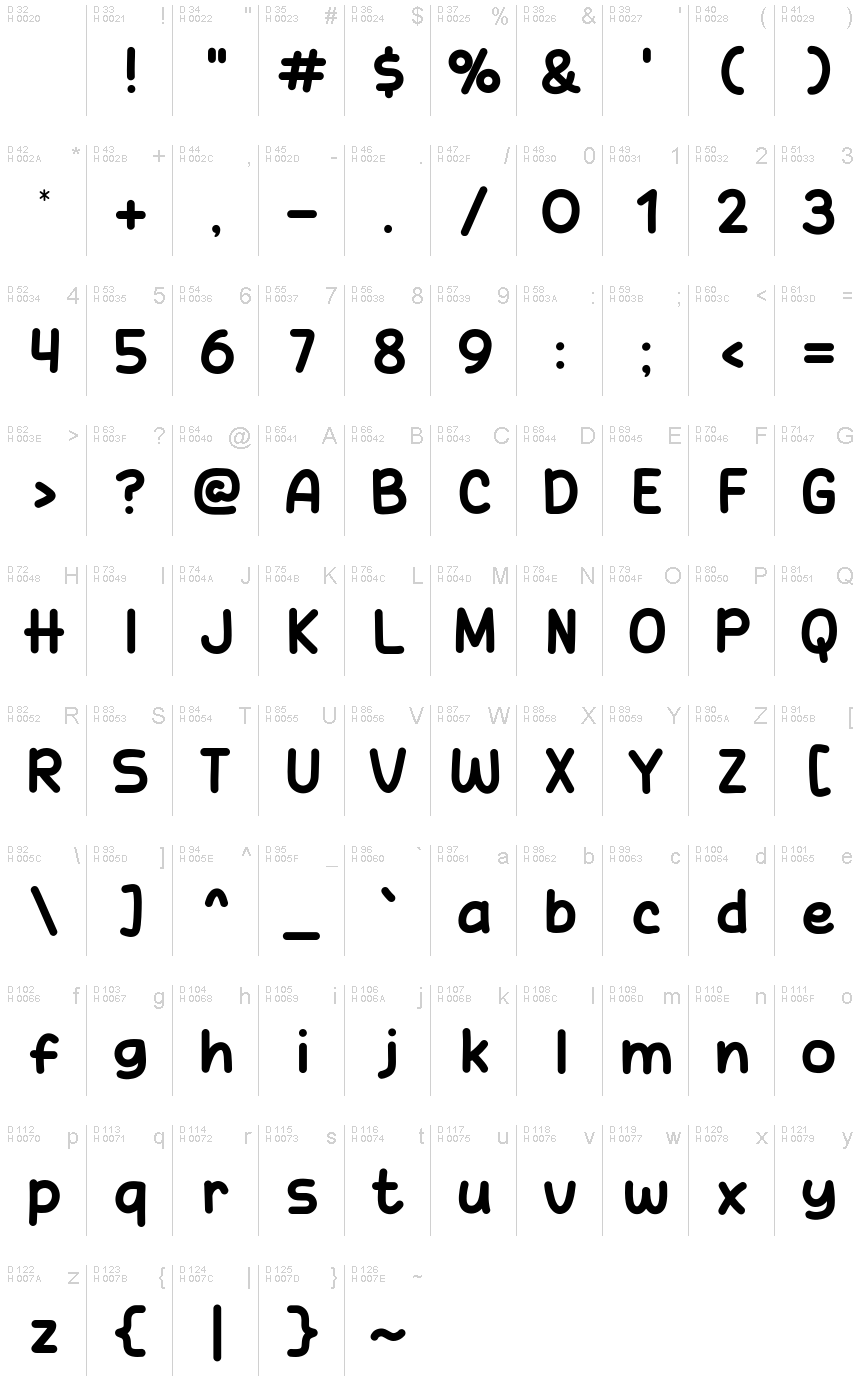
Cat Song
Cat Song, a handwritten font designed by Khurasan, captivates with its organic curves and playful personality. The script-like strokes evoke a sense of warmth and approachability, while the slightly irregular letters suggest a human touch. This font's versatility shines through its ability to convey a range of emotions, from whimsical and lighthearted to elegant and refined.
The distinct character of Cat Song makes it an excellent choice for a variety of design projects, from greeting cards and invitations to branding and packaging. Its charming aesthetic lends itself beautifully to projects that aim to create a personalized, handcrafted feel, such as wedding stationery, event materials, or even children's products. The font's adaptability also allows it to seamlessly integrate into designs that require a touch of playfulness and personality.